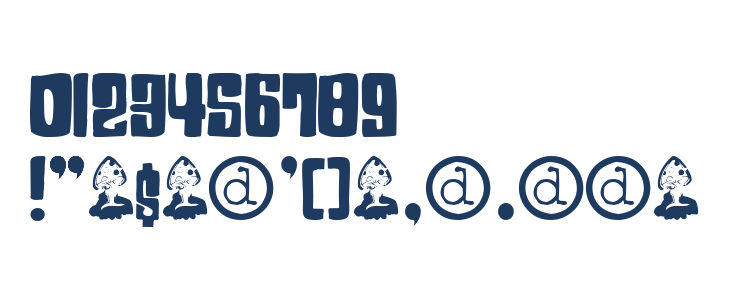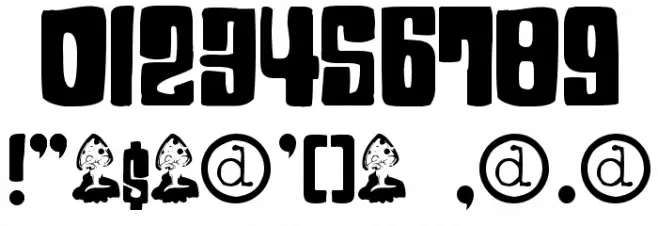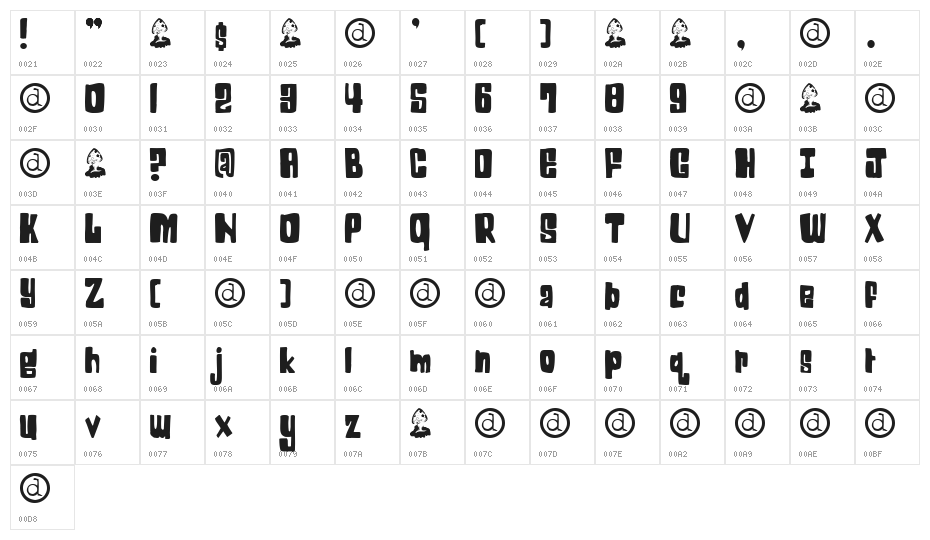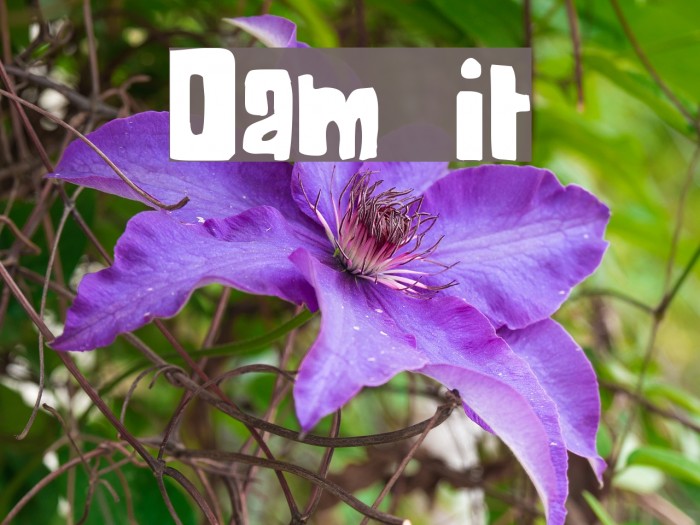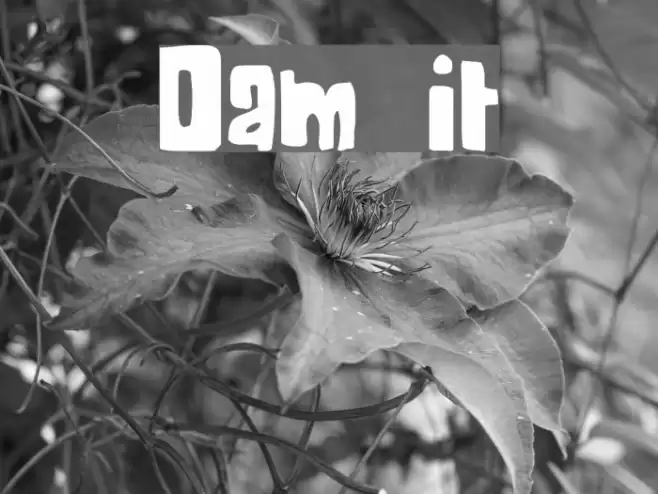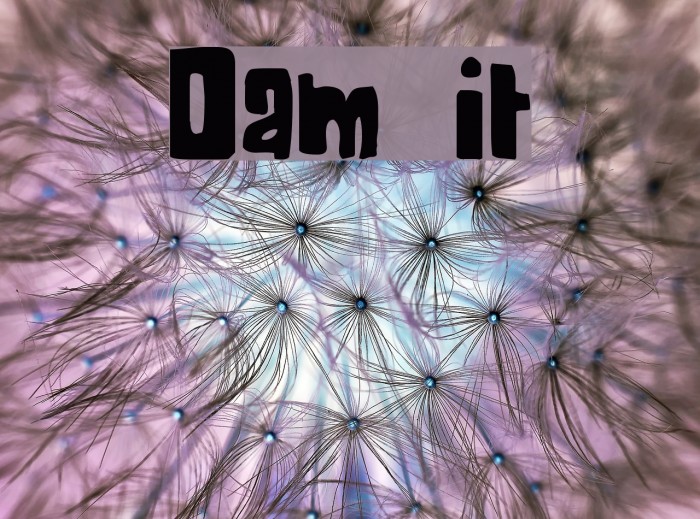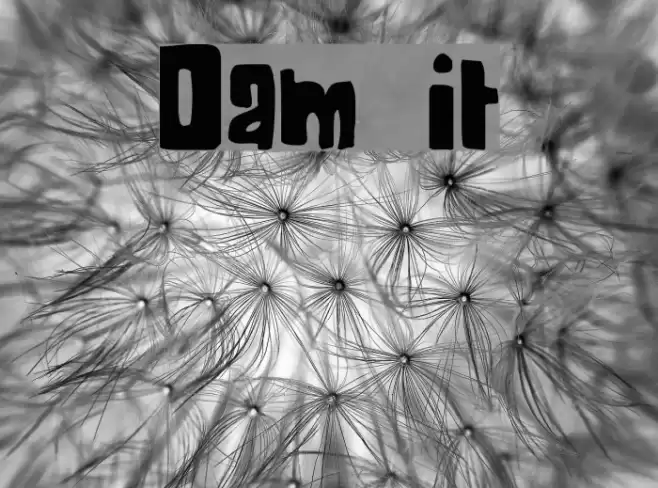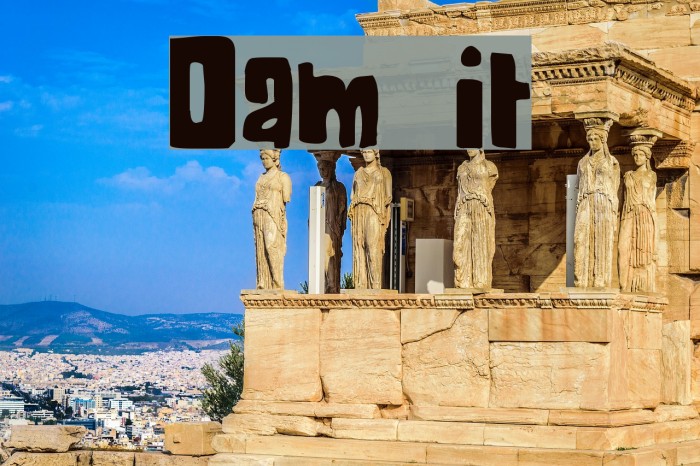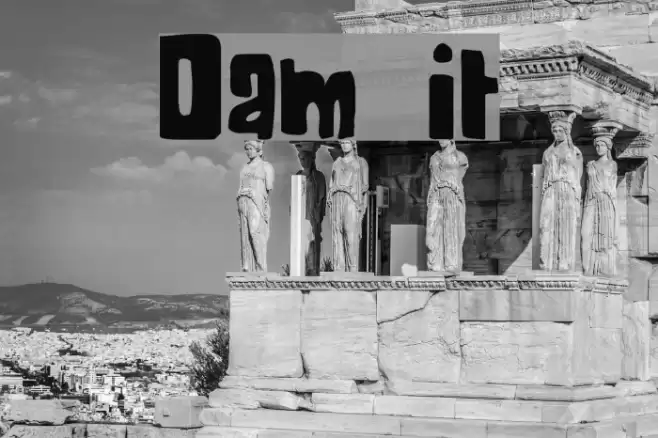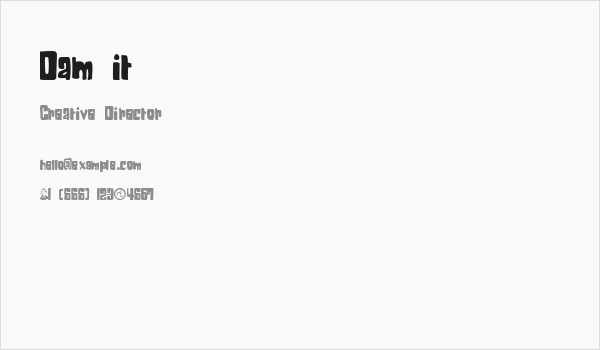
Dam it Font
Dam it Description
This font features a bold and chunky design with a playful and slightly irregular style. The characters are heavily weighted, giving them a strong presence, while the uneven edges and varying stroke widths add a whimsical touch. The uppercase and lowercase letters maintain a consistent boldness, making them stand out prominently. The numbers follow the same robust style, ensuring uniformity across all characters. Special characters are creatively designed, adding to the font's unique personality. Overall, this font exudes a fun and energetic vibe, perfect for projects that require a bold statement.
| Overall Style | Playful, Energetic, Whimsical |
| Use Case | Headlines, Posters, Creative Branding |
| Proposed Projects | Ideal for children's books, playful branding, posters, and creative advertisements. |